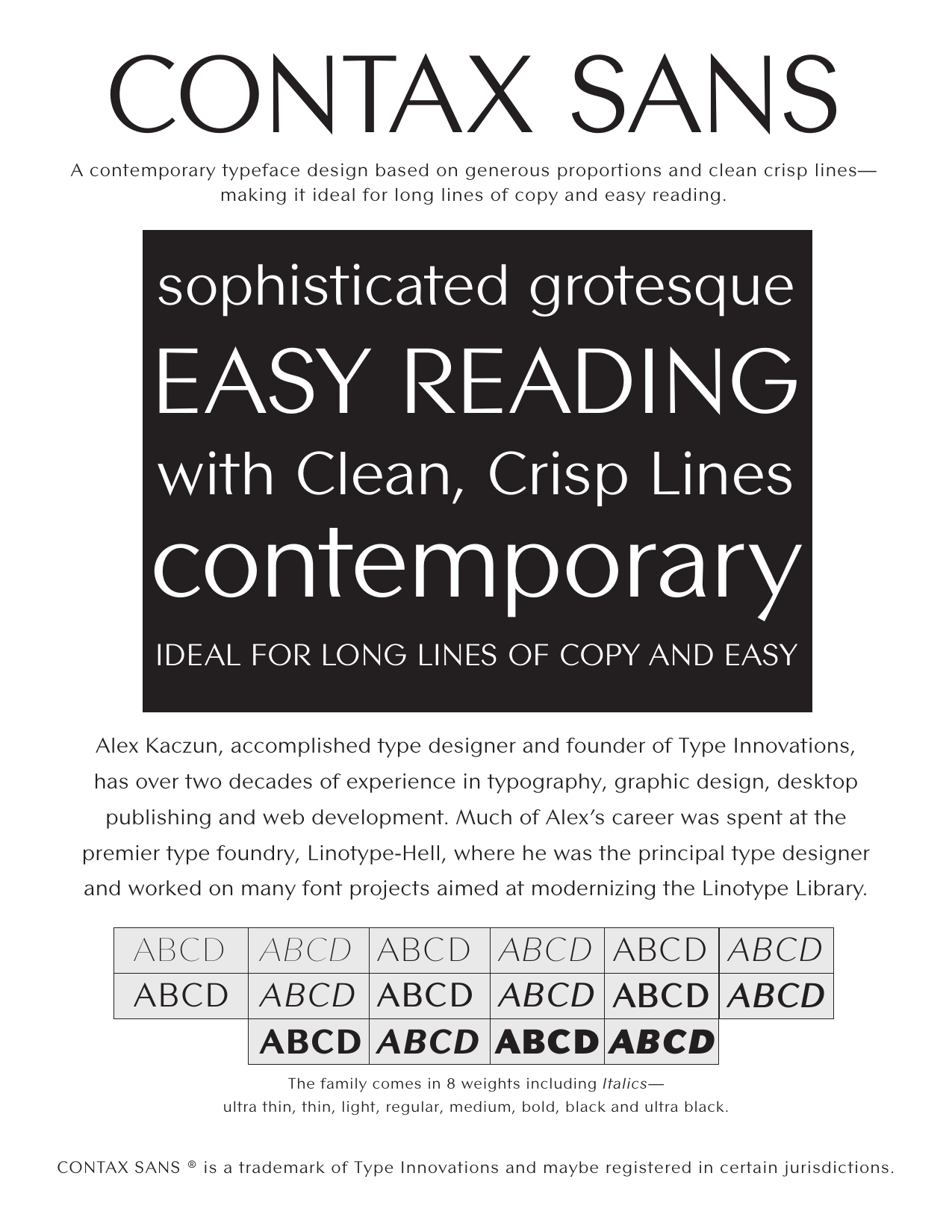
Contax Sans Collection
UltraBlack ItaLionize is the moniker for the partnership of creative agency, Channelzero, and media agency, 360DMG, launched in 2020. As an agency working with an eclectic client portfolio, the typeface Contax Sans was chosen for its ability to be elegant enough to appeal to the likes of high-end investment banks yet cool enough to hit the mark with fast-paced retail brands.
Contax Sans was created by Alex Kaczun, an American type designer, in 2011. It is a contemporary typeface design based on generous proportions and clean crisp lines—making it ideal for long lines of copy and easy reading. It was modeled after and based on one of his most popular new geometric font families called "Contax Pro". Similar to the proportions and overall spacing of "Contax", the new "Contax Sans" incorporates subtle thick and thin stem variations reminiscent of Hermann Zapf's "Optima" family of fonts. The new typeface series shares all the best aspects of "Contax Pro", but is a more delicate and elegant interpretation of the original grotesque and can easily be used in conjunction with or separately for a multitude of typographic solutions.
The family comes in 8 weights including Italics—ultra thin, thin, light, regular, medium, bold, black and ultra black. The large font character set provides support for most Central European and many Eastern European languages.
Alex Kaczun is currently working on expanding the series to include yet 2 additional variations to the mix, including "Contax Serif" and "Contax Slab". In the end, all 4 typeface style variations of "Contax" will be carefully coordinated to compliment and work well with each other, and provide a useful palette of font choices for both print and the web. And the long term project is to create a super family of "Contax" with additional condensed and expanded variations to the entire mix.